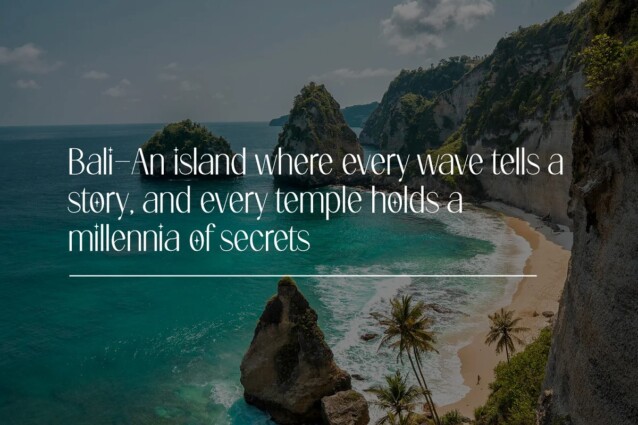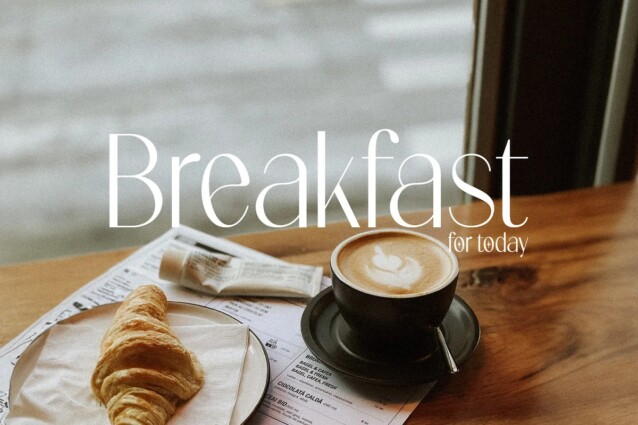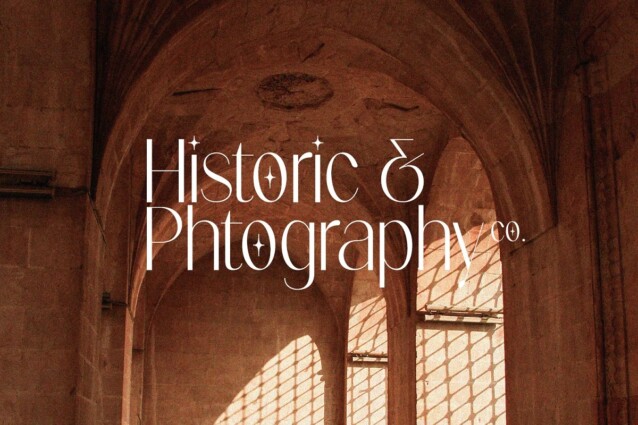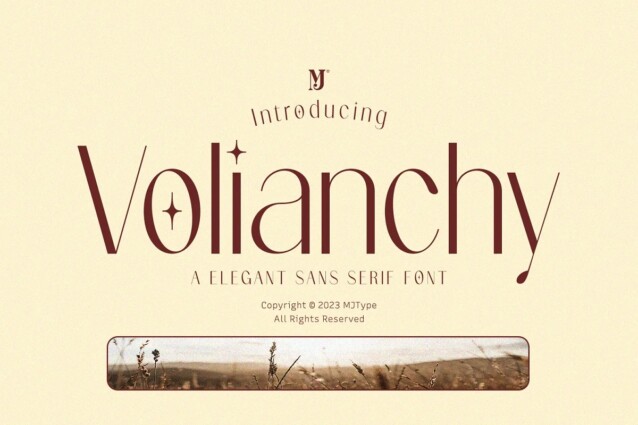
Volianchy Font
Volianchy Font is designed to look cute when compared to other design elements, due to the very thin typeface. This typeface draws inspiration from contemporary design trends, while retaining a timeless essence that ensures its relevance in any era. Volianchy is perfect for headlines, editorial design, monograms, branding, logos, poster design, and more.